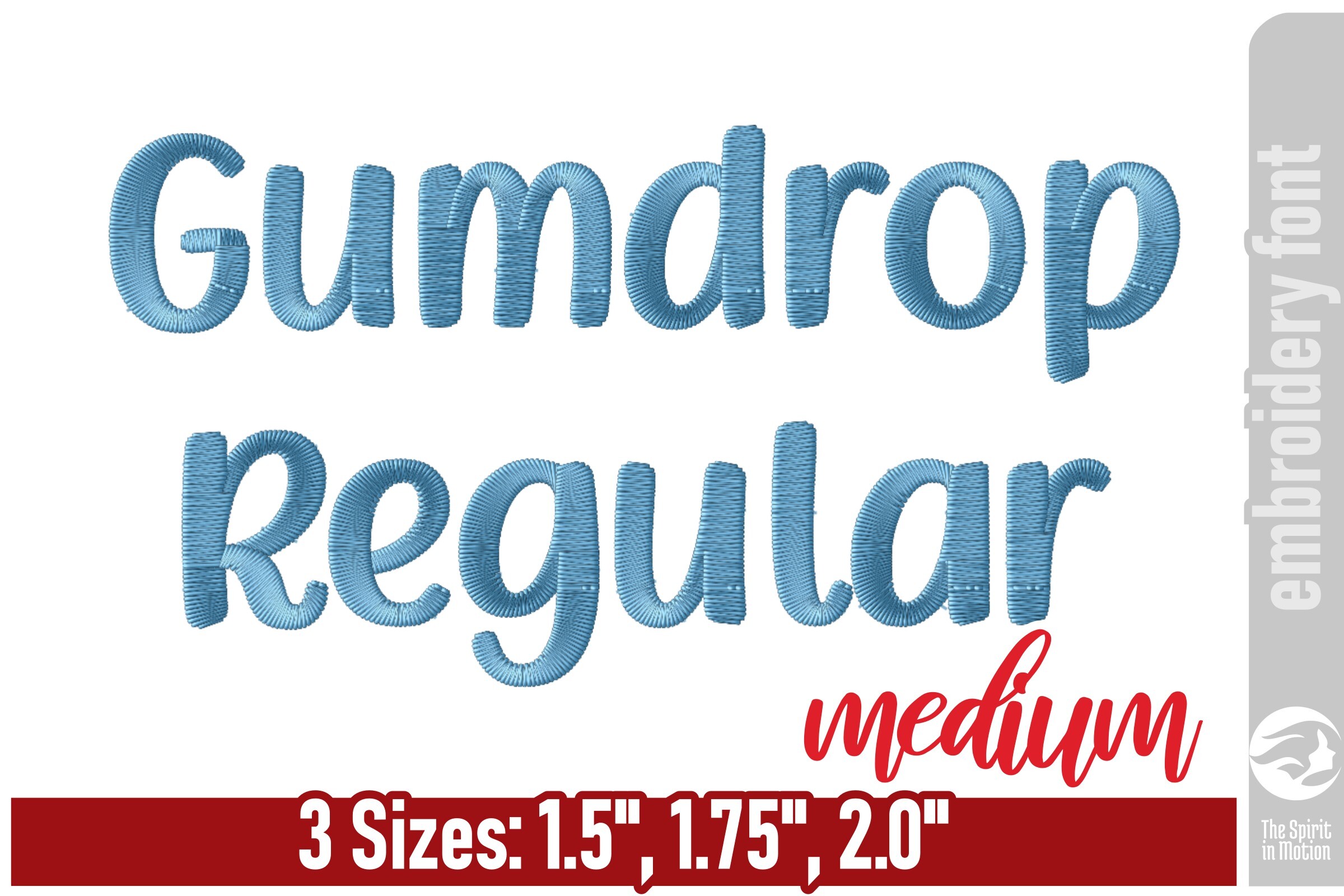
Gumdrop Playful Embroidery Font - Medium
Bring a fresh, approachable energy to your next project with the playful Gumdrop Regular font, a friendly embroidery display font designed for high-impact personalization. Whether you are creating custom gear for a school event, branding for a boutique, or personalized gifts, this font offers a polished look that balances playfulness with a professional finish. It is the perfect choice for adding a custom touch to apparel, tote bags, throw pillows, and home decor items.